The holiday season is a time of joy, celebration, and creative expression.
One delightful way to capture the festive spirit is through typography that embodies the warmth and magic of Christmas.
Be it designing greeting cards, creating holiday party invitations, or adding a touch of seasonal cheer to your documents, the right font can transform your text into a merry masterpiece.
In this guide, we’ll explore ten spectacular Christmas fonts available in Microsoft Word that will instantly elevate your holiday-themed designs.
Let’s begin.
1. Arial Black
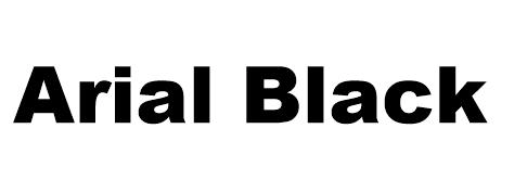
With its bold and clean lines, Arial Black brings a strong, modern approach to holiday typography.
The robust letterforms provide excellent readability while maintaining a festive boldness perfect for holiday headlines, party invitations, or event announcements.
Its straightforward design ensures your message stands out with clarity and impact, making it an excellent choice for both professional and personal Christmas communications.
2. Brush Script MT
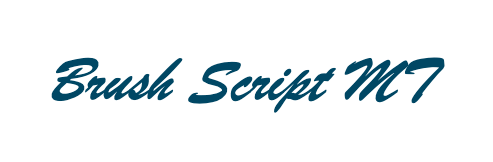
With its flowing, handwritten style, Brush Script MT captures the warmth of handcrafted holiday greetings.
The elegant, cursive letters look like they’ve been lovingly written with a festive paintbrush, adding a personal and intimate feel to your Christmas communications.
It’s particularly charming for creating Christmas card messages or adding a soft, personal touch to holiday invitations.
3. Impact
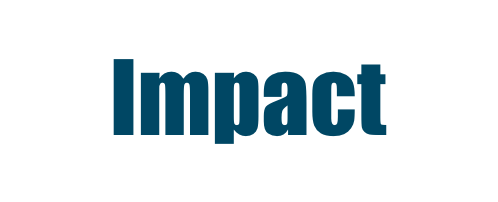
Impact is a font that commands attention with its heavy, condensed letterforms.
During the holiday season, this font becomes a powerful tool for creating eye-catching designs that grab immediate attention.
Whether you’re designing Christmas event posters, creating festive signage, or making bold holiday announcements, Impact ensures your message is loud, clear, and full of holiday spirit.
4. Kristen ITC
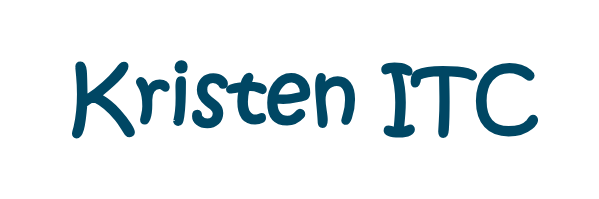
Kristen ITC brings a playful, almost childlike charm to holiday typography.
Its rounded, slightly irregular letters look like they’ve been drawn by hand, capturing the innocent joy and excitement of the Christmas season.
This font is particularly delightful for children’s Christmas party invitations, school holiday programs, or any design that wants to evoke a sense of childhood wonder and festivity.
5. Jokerman
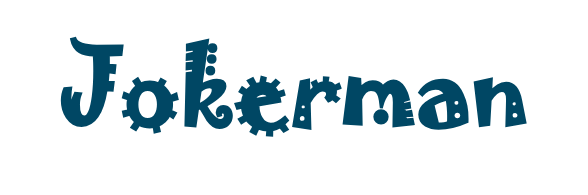
Jokerman is pure Christmas fun personified.
With its exaggerated, almost cartoonish letters that seem to bounce and twist, this font captures the playful spirit of the holiday season.
It’s perfect for children’s Christmas party invitations, festive event posters, or any design that calls for a sense of whimsy and joy.
6. Lucida Handwriting
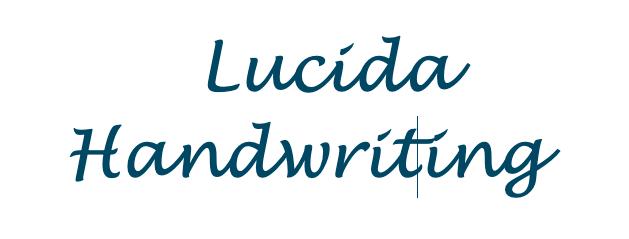
Lucida Handwriting offers an elegant, sophisticated script that brings a touch of refinement to holiday communications.
Its smooth, connected letters suggest warmth and personal connection, making it ideal for Christmas cards, elegant invitations, or any design that requires a graceful, personal touch.
The font beautifully mimics carefully crafted handwriting, adding a sense of intimacy to your holiday messages.
7. Freestyle Script
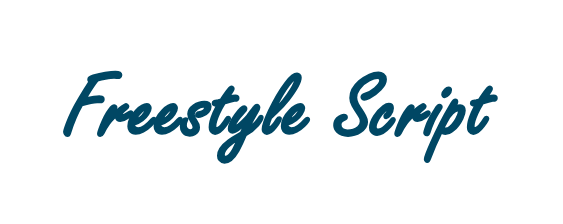
Freestyle Script offers a modern, casual approach to holiday typography.
Its smooth, flowing letters look like they’ve been quickly and cheerfully written, bringing a spontaneous and personal feel to your designs.
The font is perfect for creating informal holiday invitations, personal Christmas messages, or designs that require a relaxed and friendly tone.
8. Comic Sans MS
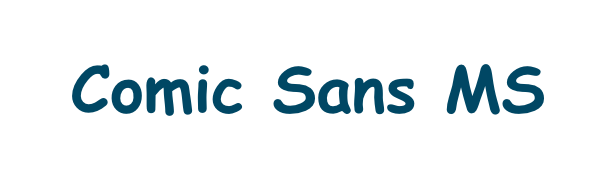
While often playfully criticized, Comic Sans MS shines during the holiday season with its informal, friendly appearance.
Its casual, rounded letters bring a light-hearted and approachable feel to holiday communications.
It is ideal for family Christmas newsletters, children’s holiday crafts, or any project that benefits from a warm, unpretentious typographic style.
9. Palatino Linotype
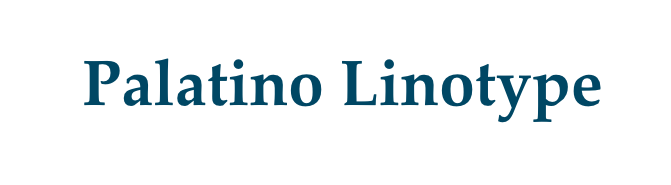
Palatino Linotype brings a classic, sophisticated elegance to holiday design.
Its well-balanced letterforms and slight serif details evoke a sense of timeless grace.
This font is suitable for more formal holiday communications, such as corporate Christmas cards, elegant party invitations, or any design that requires a touch of refined tradition.
10. Tempus Sans ITC
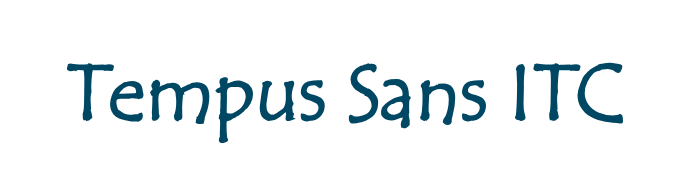
Tempus Sans ITC offers a unique blend of playfulness and structure.
Its slightly rounded letters with an energetic feel make it an excellent choice for holiday designs that want to communicate both fun and readability.
Whether you’re creating Christmas event flyers, family party invitations, or festive announcements, this font adds a cheerful yet professional touch.
These ten fonts offer a range of styles, from whimsical and playful to elegant and sophisticated, ensuring you can find the perfect typographic match for your Christmas design needs.
The best font is one that not only looks great but also captures the unique spirit of your message and the joy of the holiday season.
So this Christmas, let your typography spread some cheer, tell a story, and make your documents as festive and memorable as the season itself!